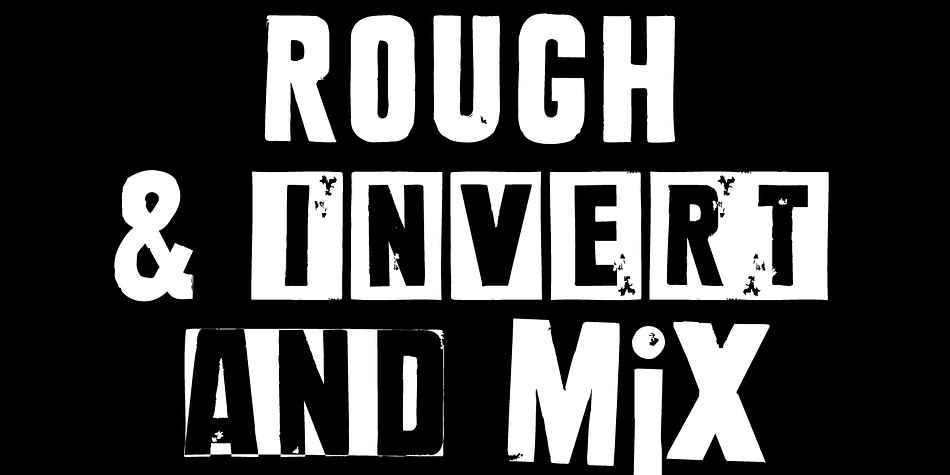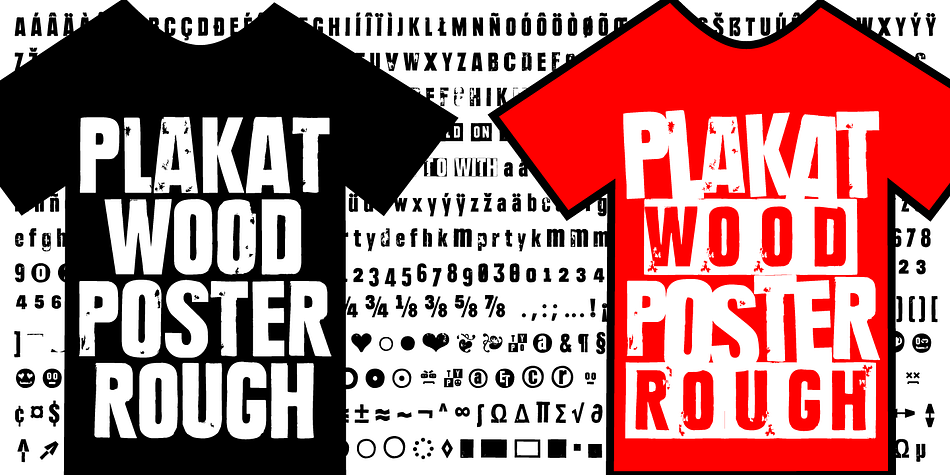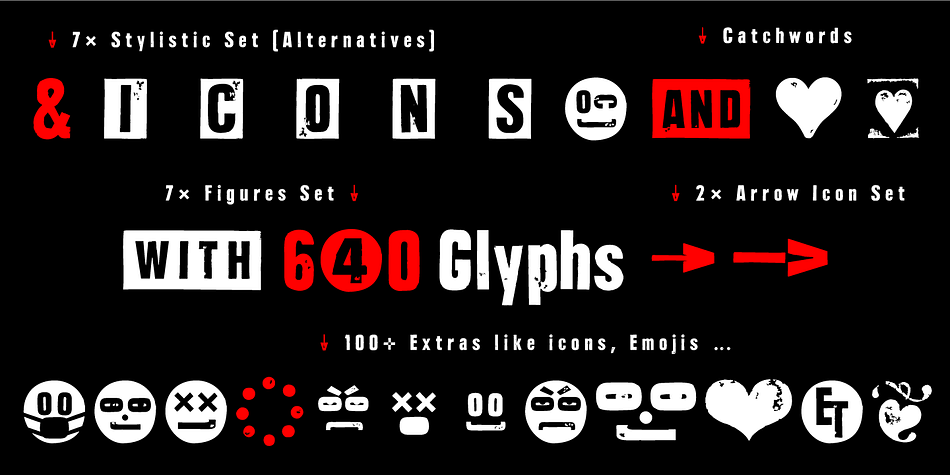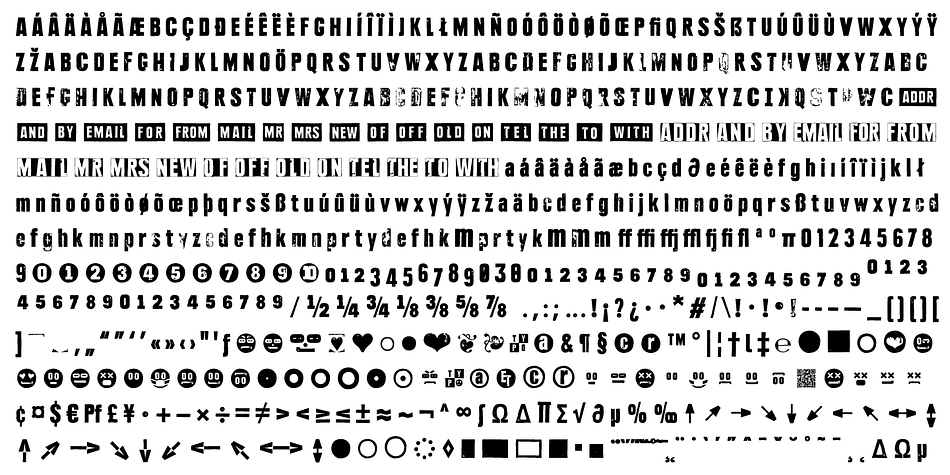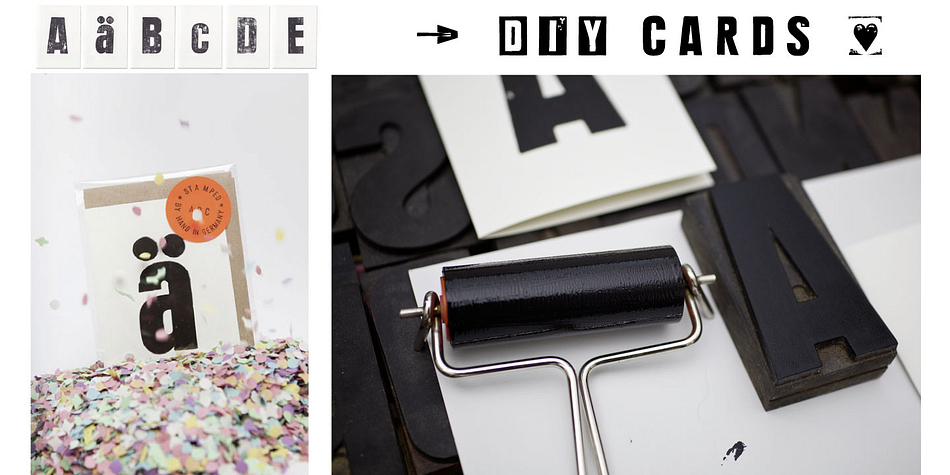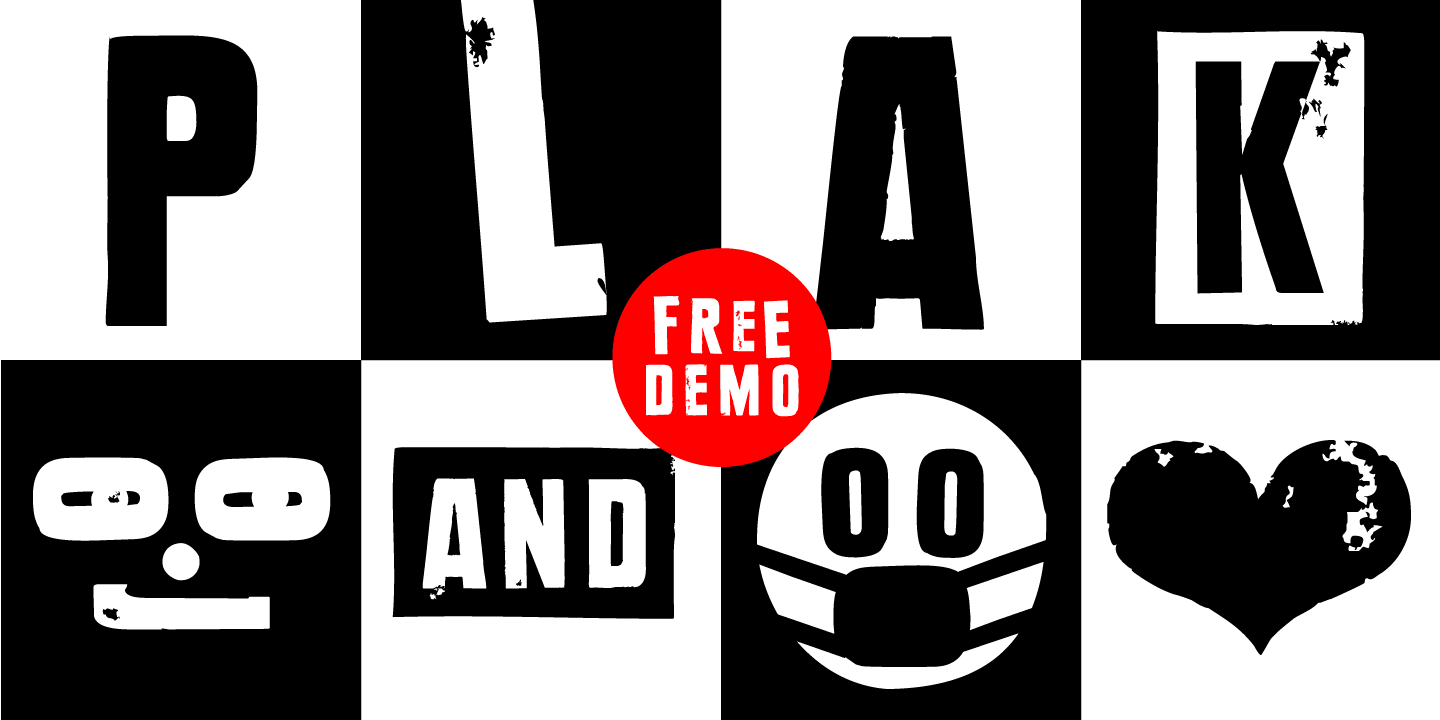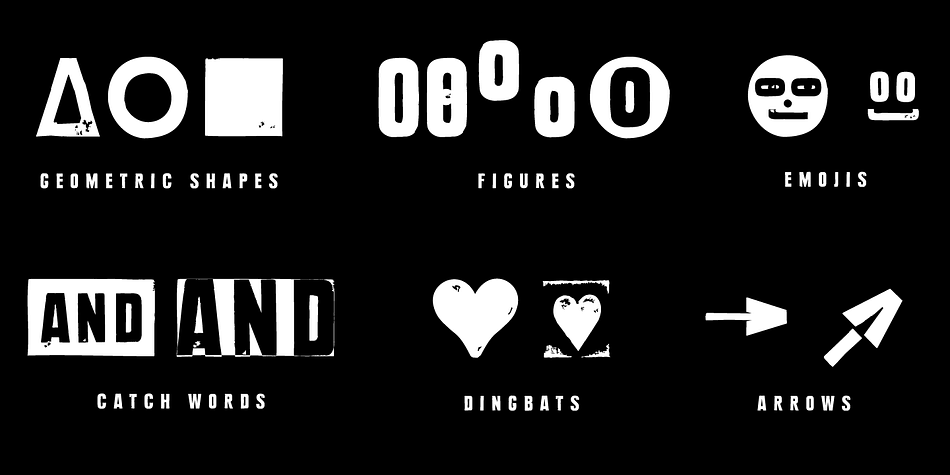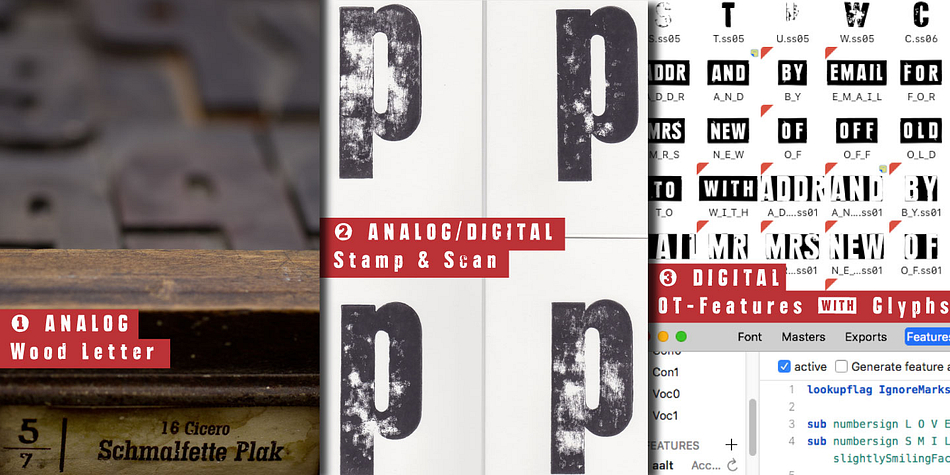
Designed by Manuel Viergutz, PLAKAT Wood is a display sans, grunge and dingbat font family. This typeface has six styles and was published by Typo Graphic Design.
The typeface PLAKAT Wood is designed from 2021 for the font foundry Typo Graphic Design by Manuel Viergutz.
The display font based on the original wood letter from Paul Renners typeface Plak Schmalfette and is inspired in the past and present.
The font started from 80 wood letters (analog) and was finally digitalize and extended to 640 glyphs (digital).
3 font-styles (Rough, Rough Mix, Rough Invert) + 1 icon-style with 640 glyphs (Adobe Latin 2) incl. 100+ decorative extras like icons, arrows, catch words, dingbats, emojis, symbols, geometric shapes (type the word #LOVE for ❤ or #SMILE for ☺ as OpenType-Feature dlig) and stylistic alternates (7 stylistic sets).
For use in logos, magazines, posters, advertisement plus as webfont for decorative headlines. The font works best for display size.
■ Font Styles: 3 font-styles (Rough, Rough Mix, Rough Invert) + 1 icon-Style + DEMO (with reduced glyph-set)
■ Glyph Set: 640 glyphs (Adobe Latin 2) incl. 100+ decorative extras like icons